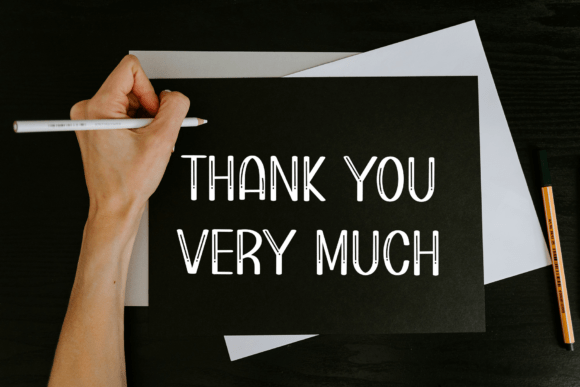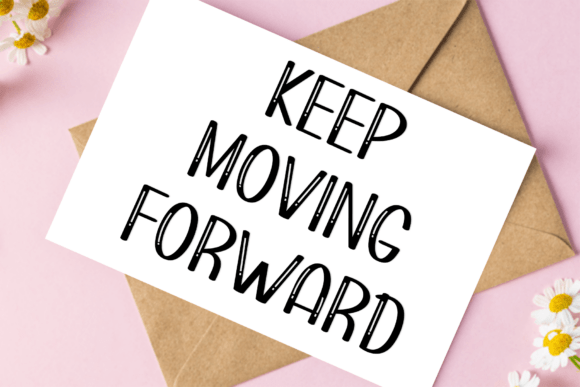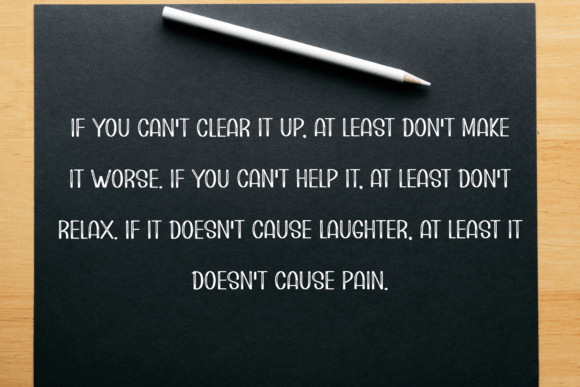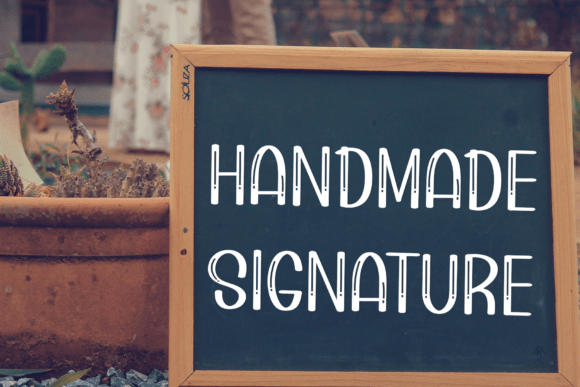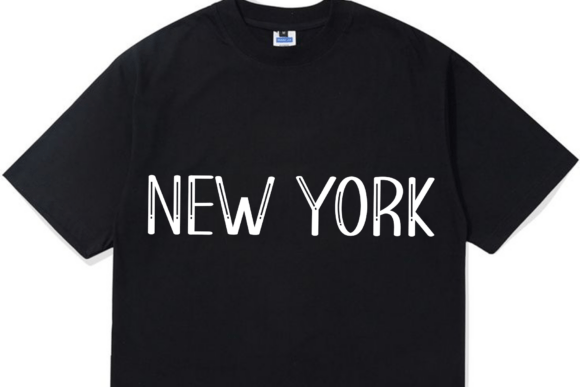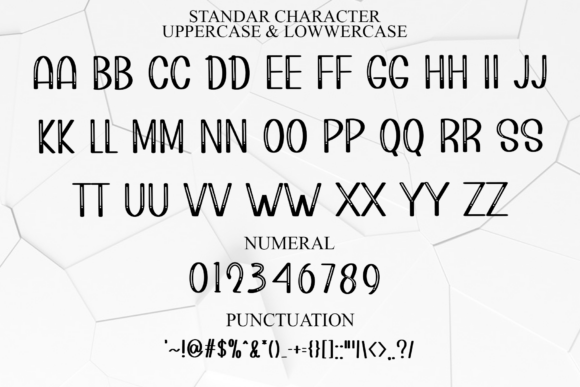
Introducing College Vintage Font: A Festive and Merry Typeface for the Holiday Season
Are you looking for a font that captures the essence of the holiday season? Do you want to add a touch of magic to your designs and make them stand out? Look no further than College Vintage Font, a festive and merry typeface that’s perfect for greeting cards, gift tags, and holiday-themed projects.
What is College Vintage Font?
College Vintage Font is a decorative typeface that’s designed to bring a cheerful and nostalgic ambiance to your words. With its whimsical flair and decorative elements, this font is sure to add a touch of enchantment to your designs. Whether you’re a designer, crafter, or DIY enthusiast, College Vintage Font is the perfect choice for anyone looking to create holiday-themed projects that shine.
Key Features of College Vintage Font
- Festive and Merry: College Vintage Font is designed to capture the spirit of the holiday season, making it perfect for Christmas cards, New Year’s Eve invitations, and other holiday-themed projects.
- Decorative Elements: This font features decorative elements and whimsical flair, adding a touch of magic to your designs.
- PUA Encoded: College Vintage Font is PUA encoded, which means you can access all of the amazing glyphs and ligatures with ease.
- Perfect for Various Projects: This font is suitable for a wide range of projects, including greeting cards, gift tags, holiday-themed parties, and more.
Why Choose College Vintage Font?
There are many reasons why College Vintage Font is the perfect choice for your holiday-themed projects. Here are just a few:
- Unique and Eye-Catching: College Vintage Font is a unique and eye-catching typeface that’s sure to make your designs stand out.
- Easy to Use: This font is easy to use and can be accessed with ease, thanks to its PUA encoding.
- Versatile: College Vintage Font is versatile and can be used for a wide range of projects, from greeting cards to holiday-themed parties.
- Nostalgic Ambiance: This font brings a cheerful and nostalgic ambiance to your words, making it perfect for holiday-themed projects.